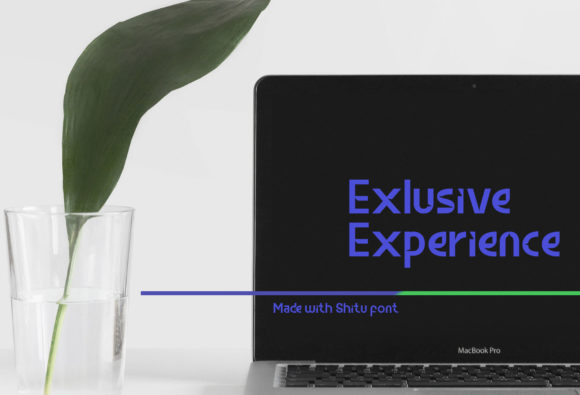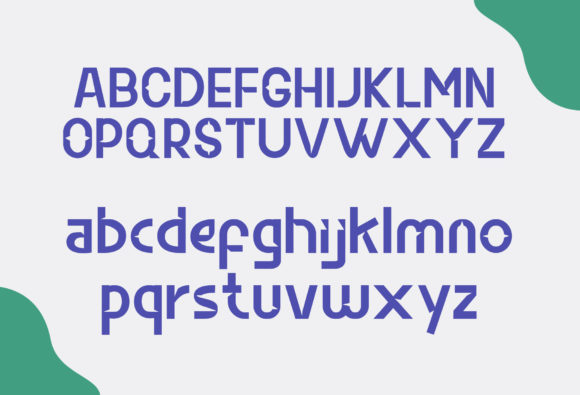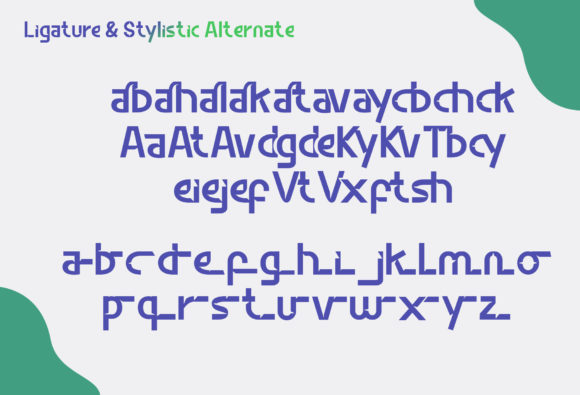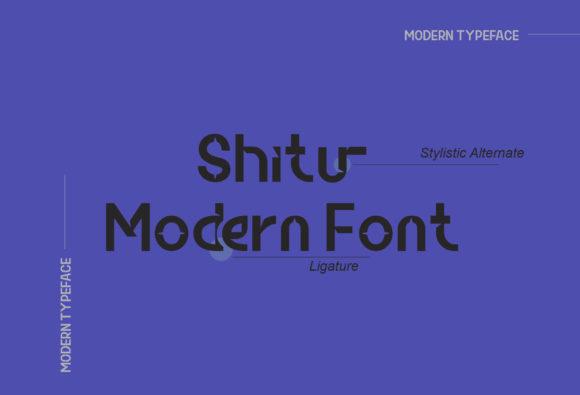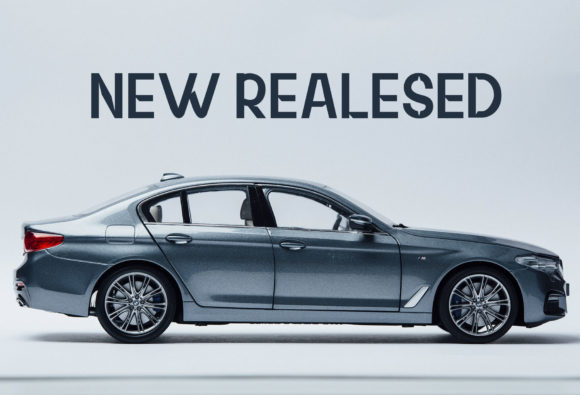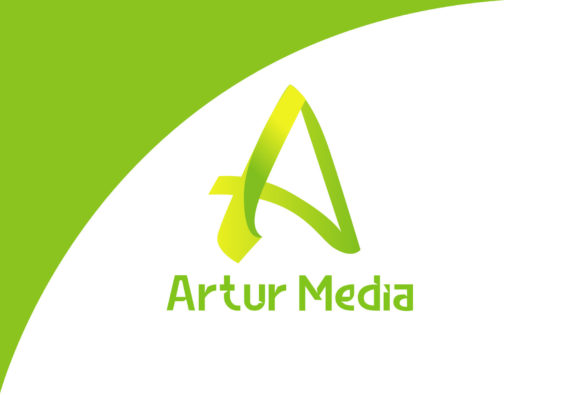
Introduction to Shitu Font
Shitu is a futuristic and cool display font.
This font is ideal for writing web designs, business cards, or pretty much anything else that requires a unique touch Shitu is PUA encoded which means you can access all glyphs and swashes with ease.
Key Features of Shitu Font
Shitu Font offers exceptional quality and versatility, making it a valuable addition to your design toolkit. Whether you’re creating for personal projects or commercial use, Shitu Font delivers professional results.